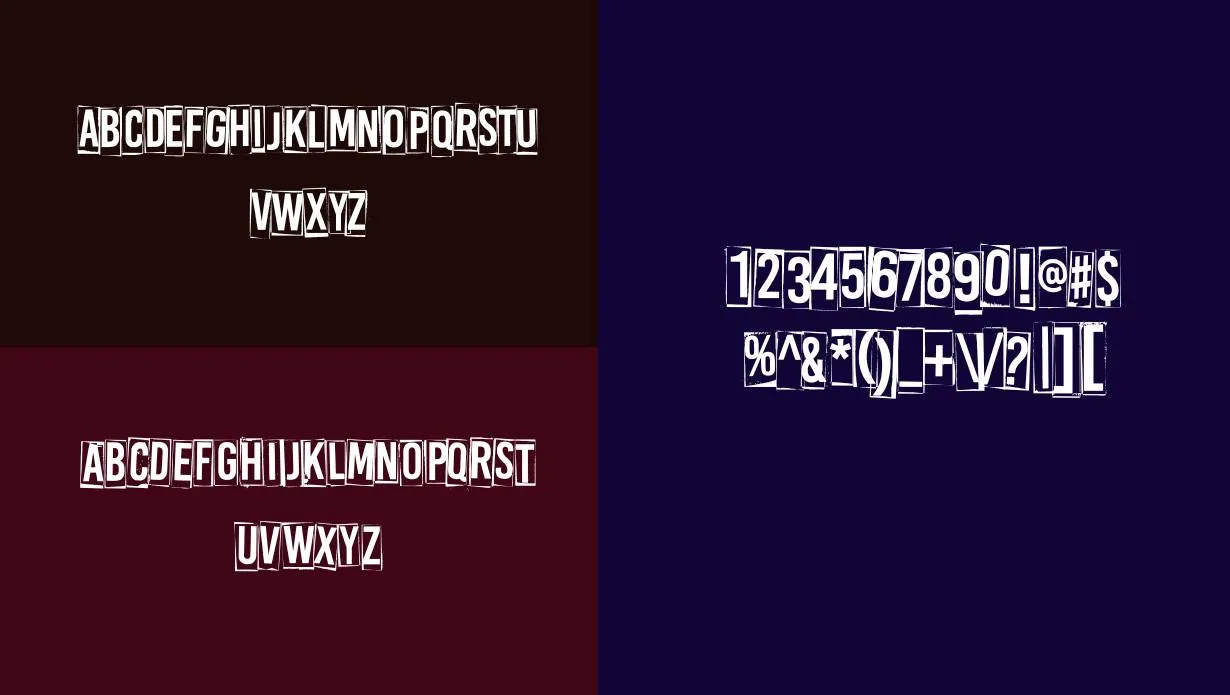
A Box For Font Family is versatile and diverse. It offers a range of styles that can adapt to various design needs. This font is often used in projects requiring different moods or tones within the same theme. Its variability makes it a practical choice, allowing for creativity and consistency across a range of designs.